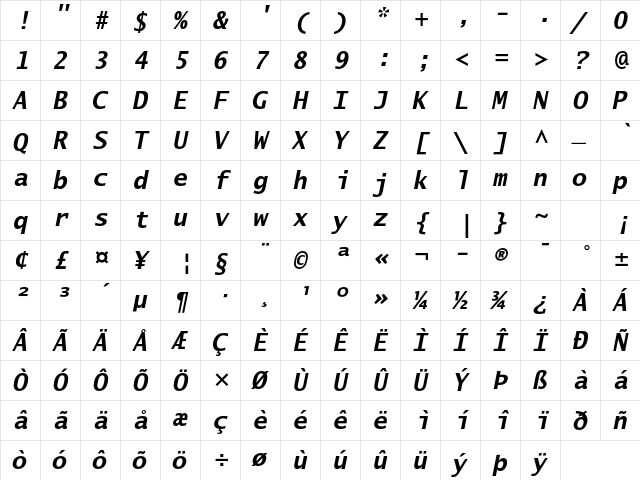
Lucida Sans Typewriter Std Bold Oblique Font Preview
| Designer | Charles Bigelow, Kris Holmes |
Design Context for Lucida Sans Typewriter Std Typeface
Lucida Sans Typewriter Std uses fixed-width spacing throughout, giving it the structured, systematic character associated with coding environments and technical documentation. The dynamic lean of this cut emphasises speed and emphasis in any layout. The heavy weight commands attention and anchors typographic hierarchies.
Pro Tip: Use Lucida Sans Typewriter Std with slightly increased line-height for extended reading — fixed-width spacing can feel dense in longer passages without extra breathing room.